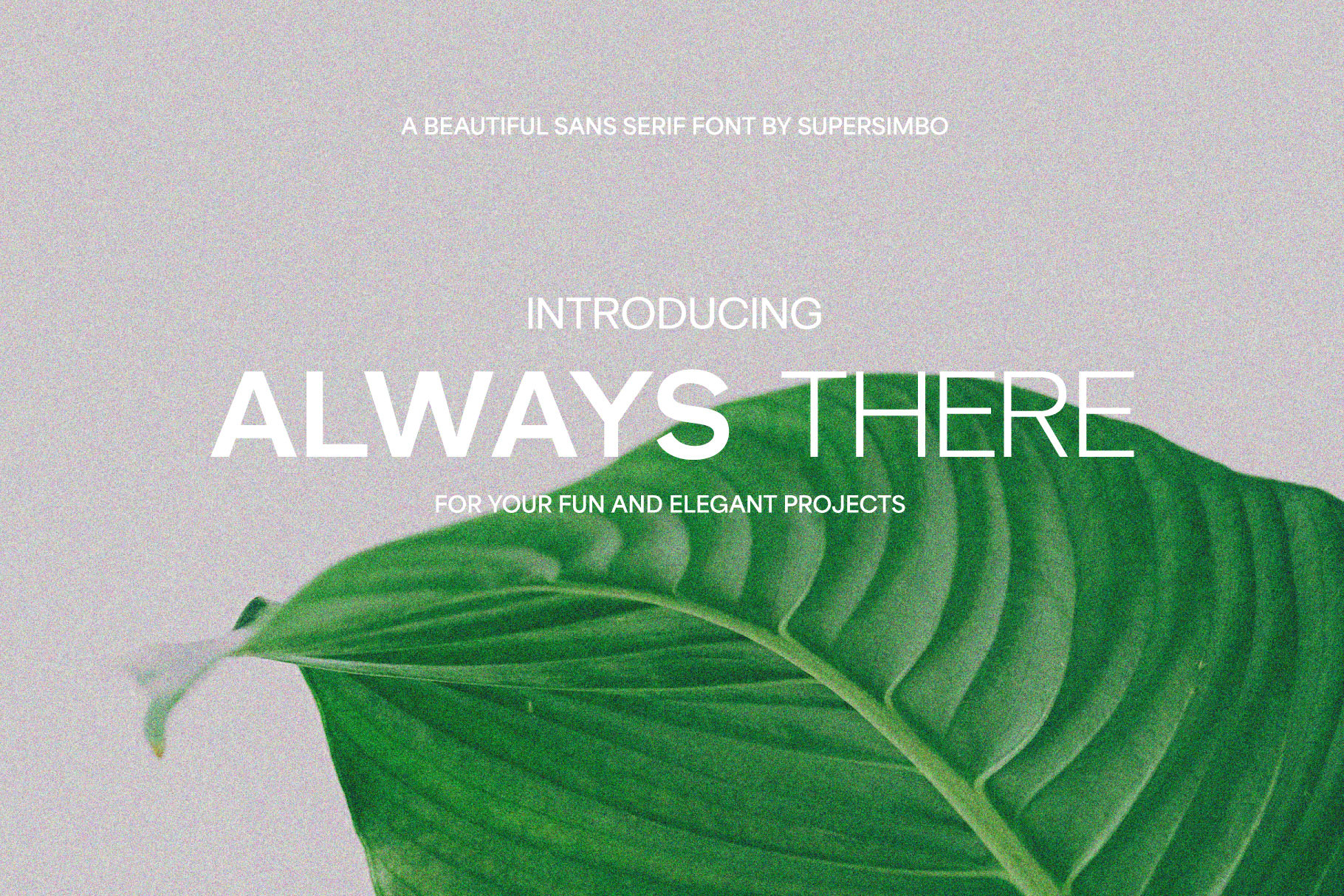
Always There | Sans Serif Font
Introducing Always There, a beautiful sans serif font for your fun projects. Smart, versatile, harmonious and minimal, with a little familiarity. Always There is the love your next project needs. Enjoy.